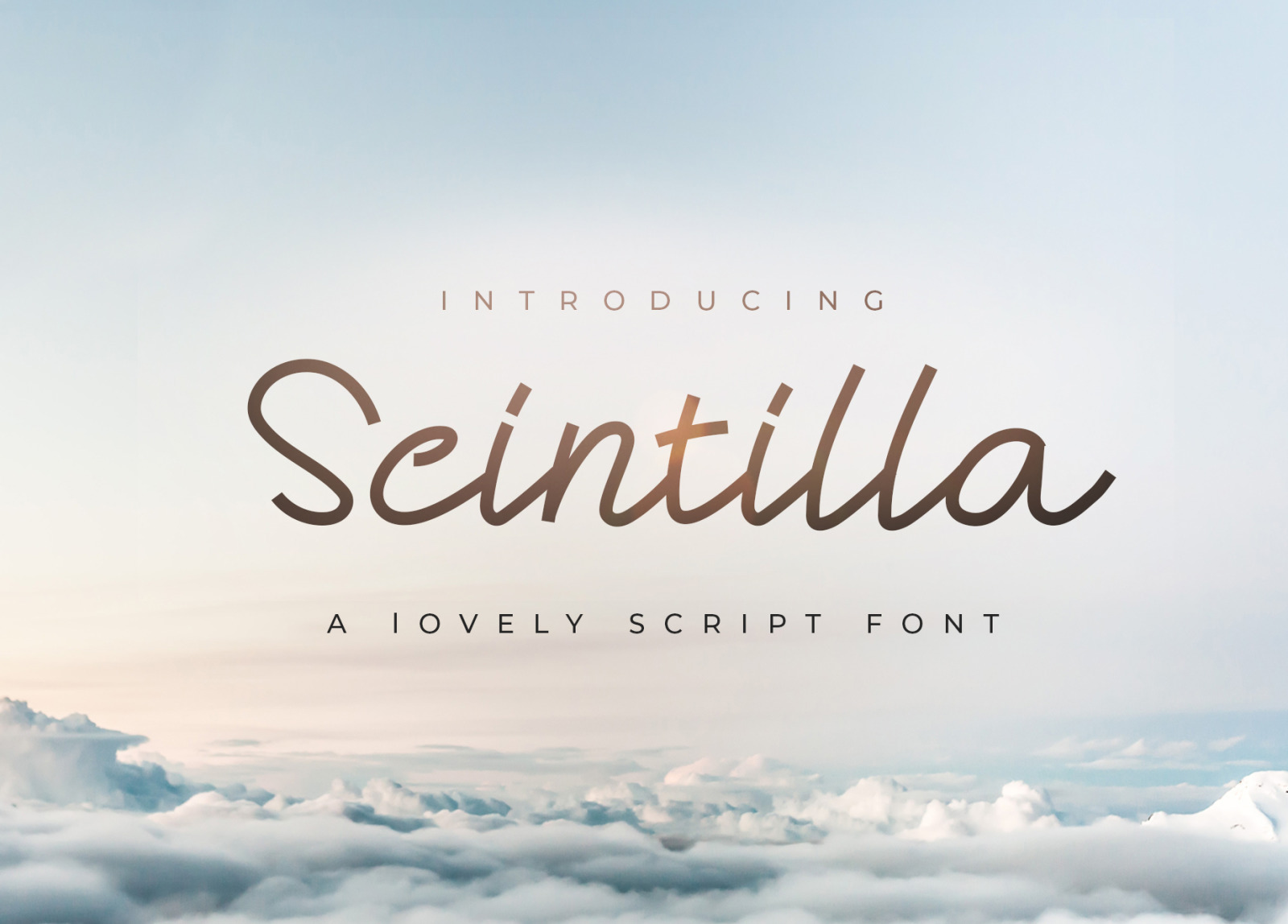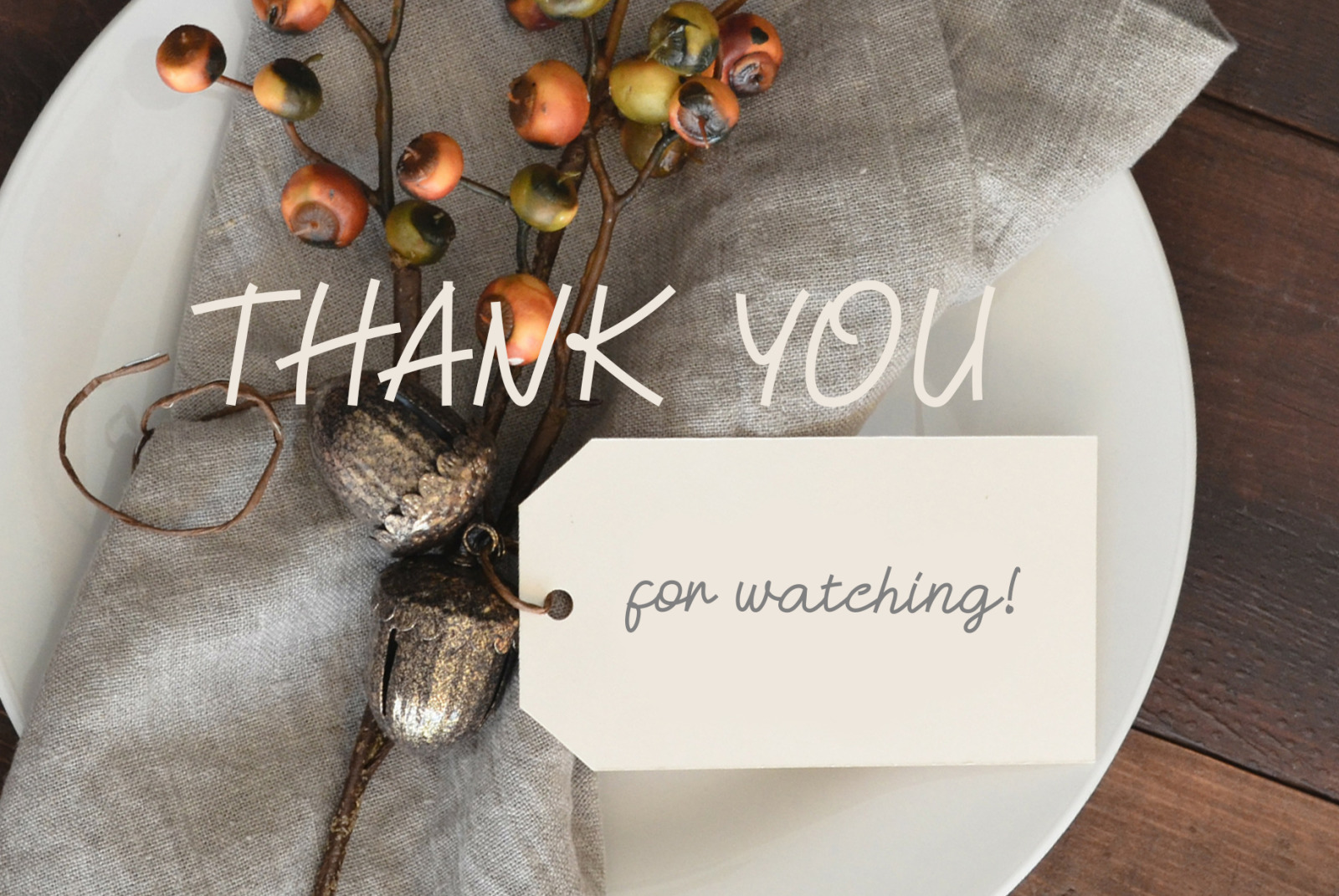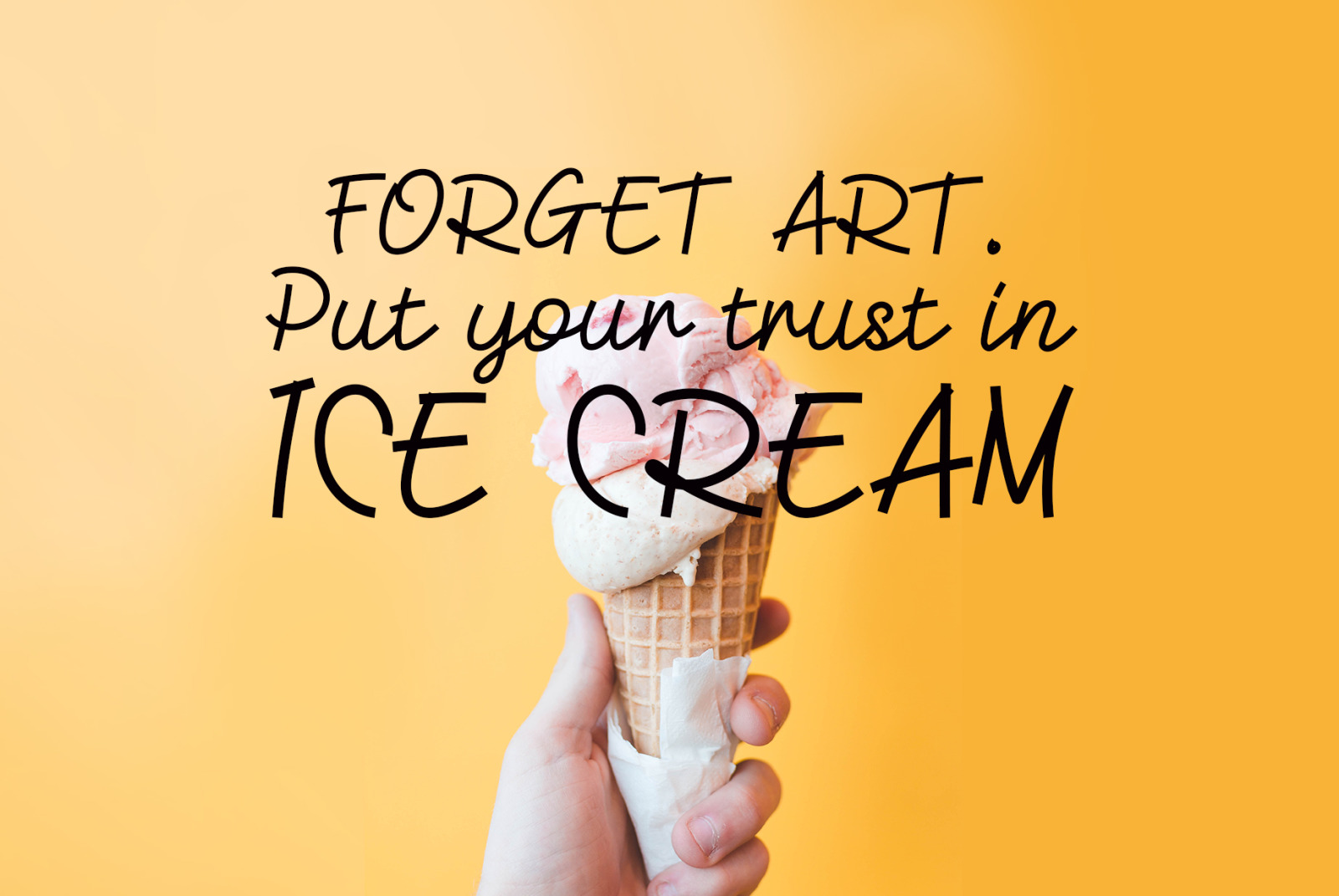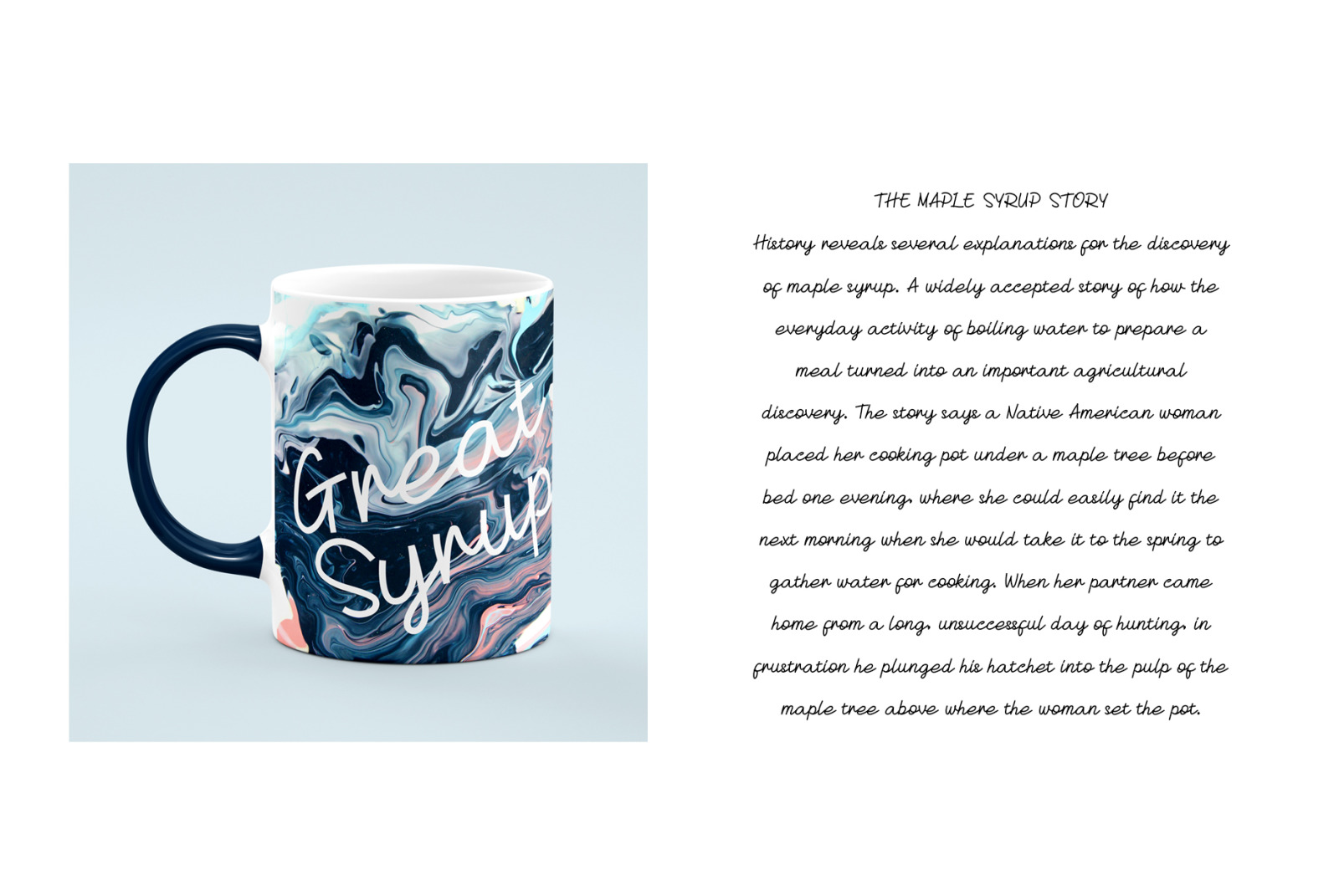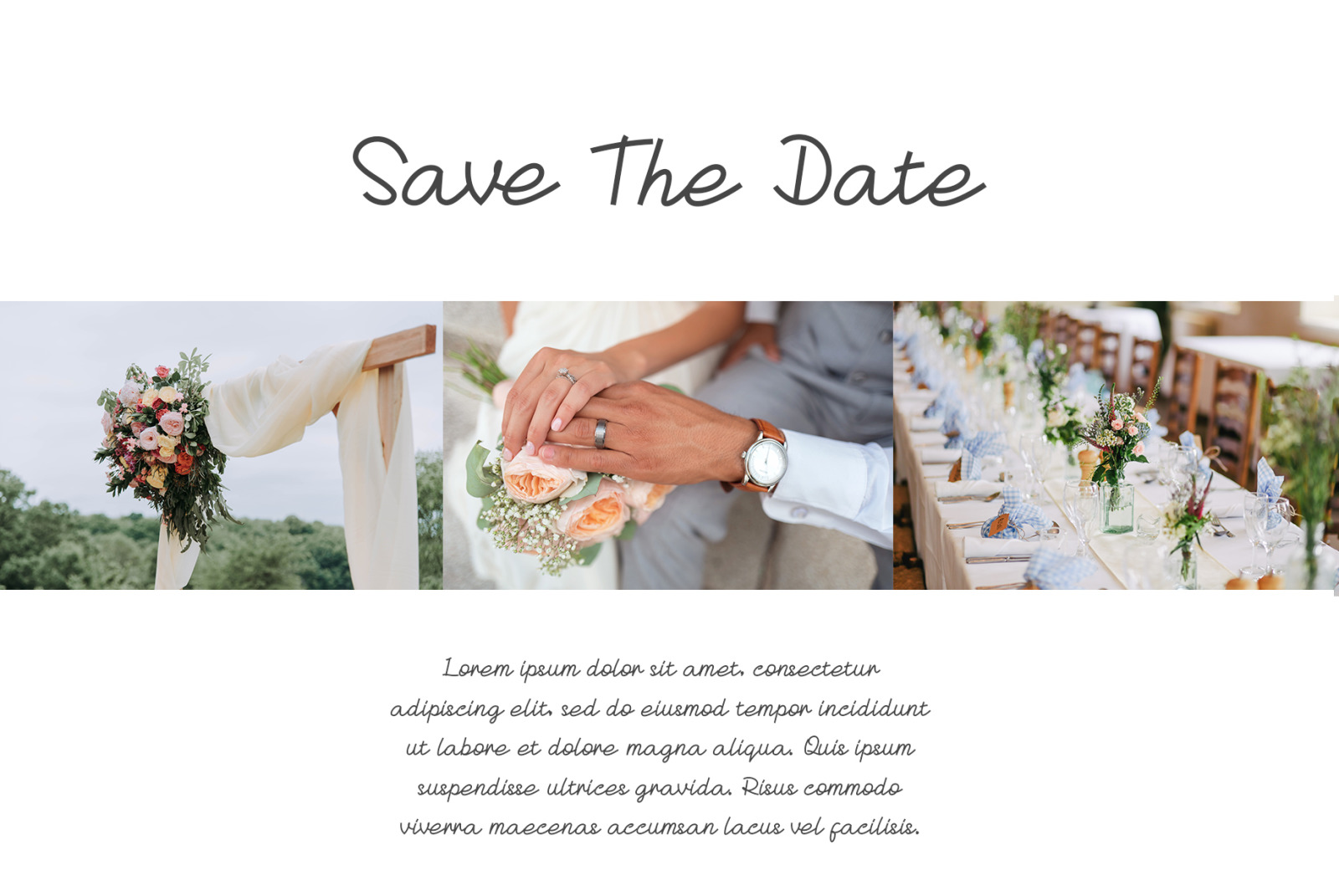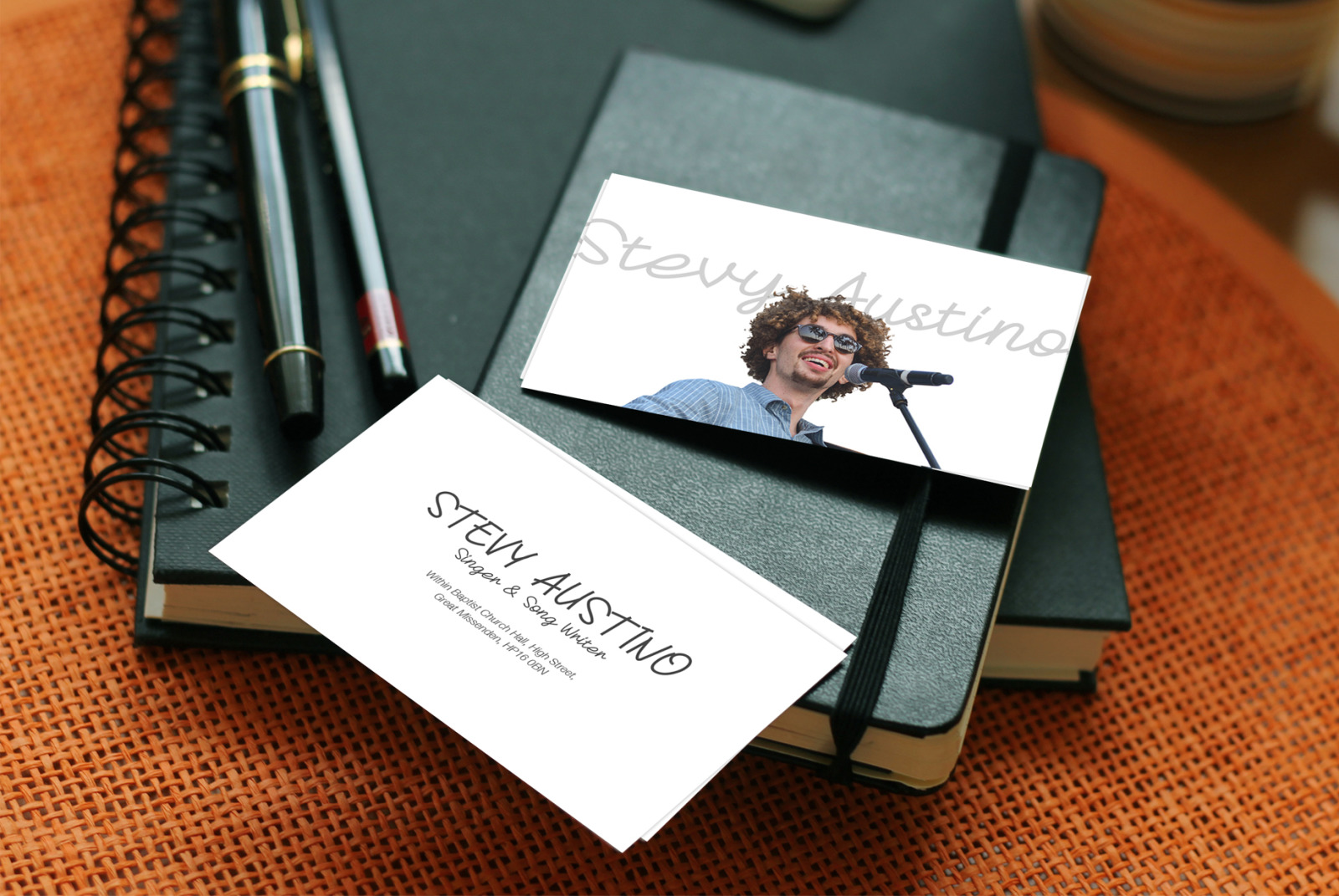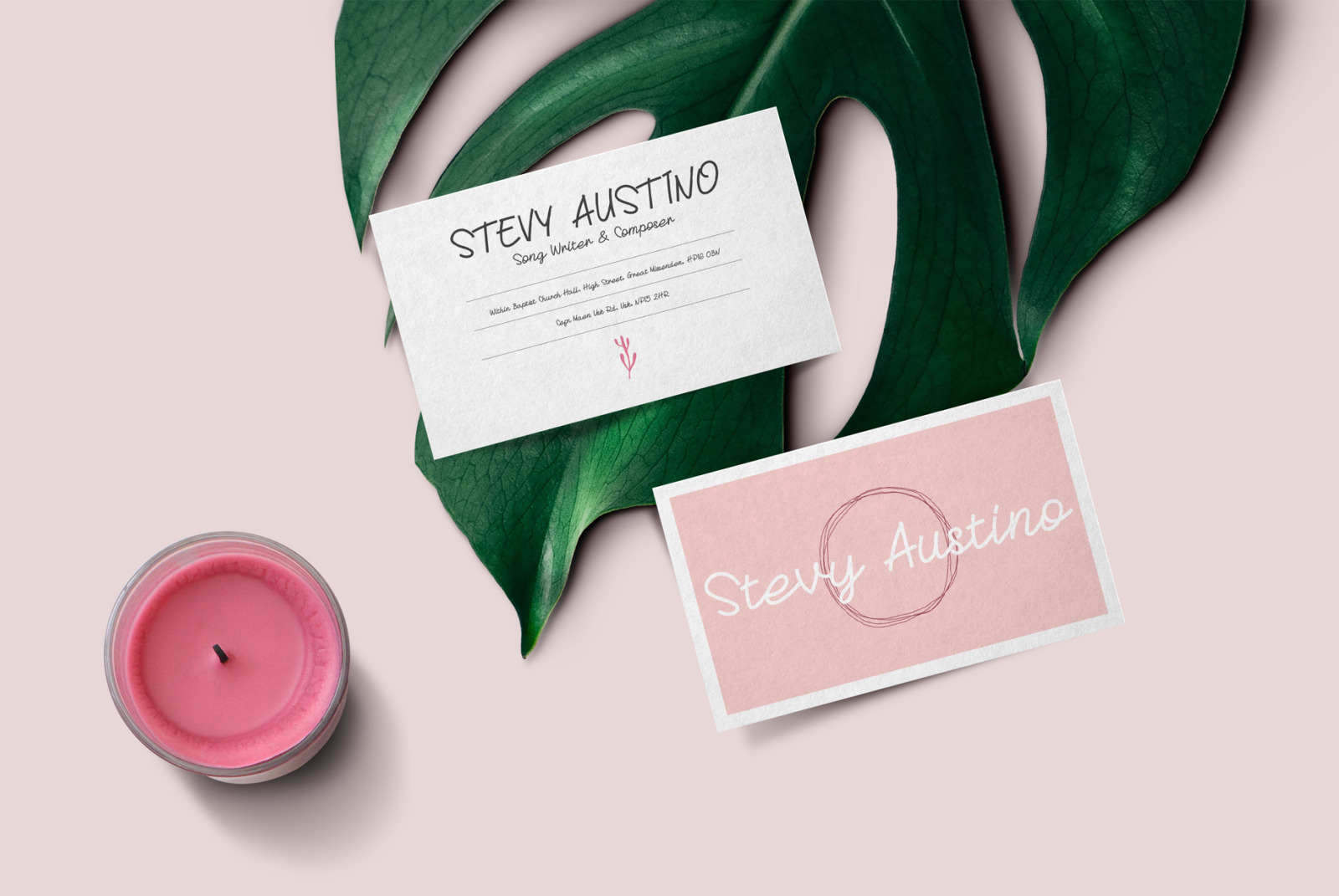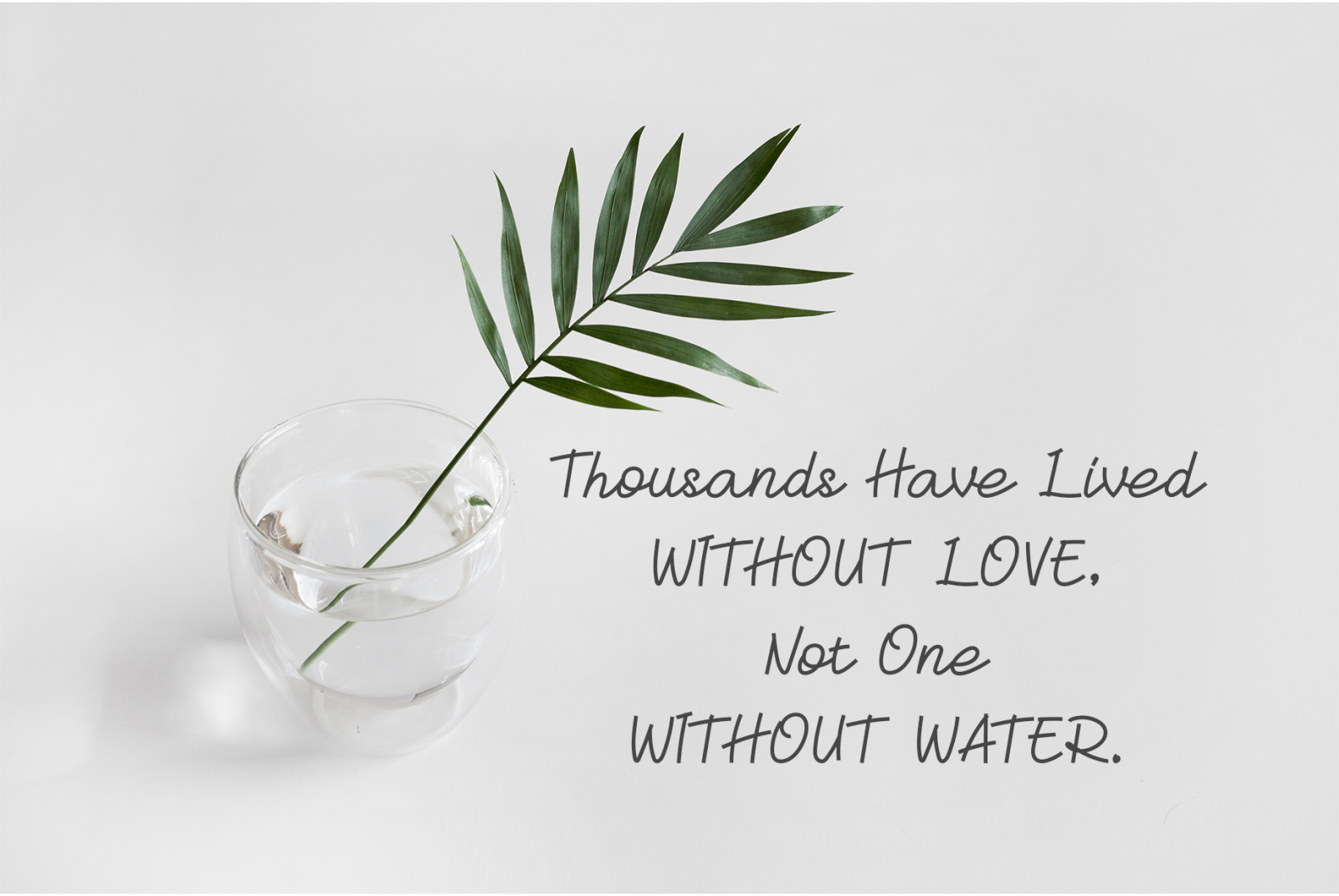
Scintilla Font
Scintilla is Stylist Casual Calligraphy Font. It is perfect for branding, wedding invites and cards, book cover, for your product packaging and also for your website page.
- Include Numeral and Punctuation
- Ligatures